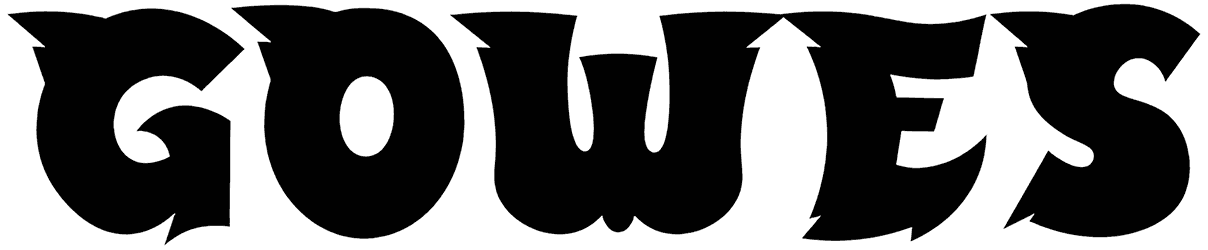
Gowes Font
Impressive, powerful, and outstanding describe Gowes’ features well. This graffiti font has a powerful texture to show your projects more prominently, which compensates well for the lack of lowercase letters and numbers.
Simple styles and flames in capital letters adapt it to any taste and give an impressive atmosphere to any project. So whether you’re running a poster for a sci-fi movie or want to make your social media ad more special, Gowes is a must-have in your toolbox.